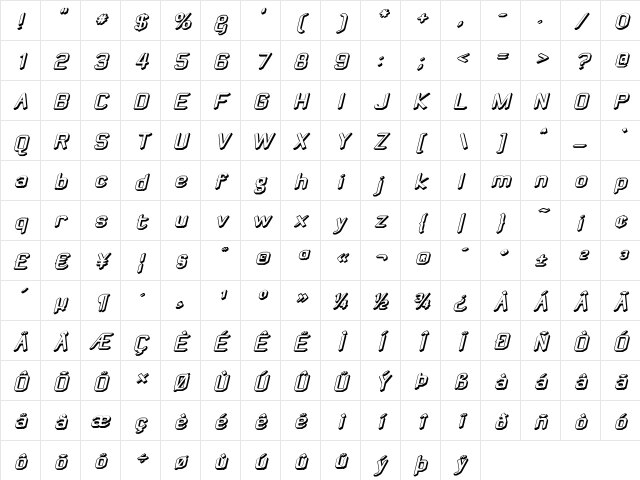
ZyphyteOffset Medium Italic Free Font
ZyphyteOffset Medium Italic
Design Context for ZyphyteOffset
ZyphyteOffset is a composed and adaptable typeface that performs quietly and consistently across a wide range of design contexts. The slanted form adds forward momentum and visual energy.
Pro Tip: Use ZyphyteOffset for emphasis, pull quotes, and subheadings where its slanted energy can add rhythm to the layout.